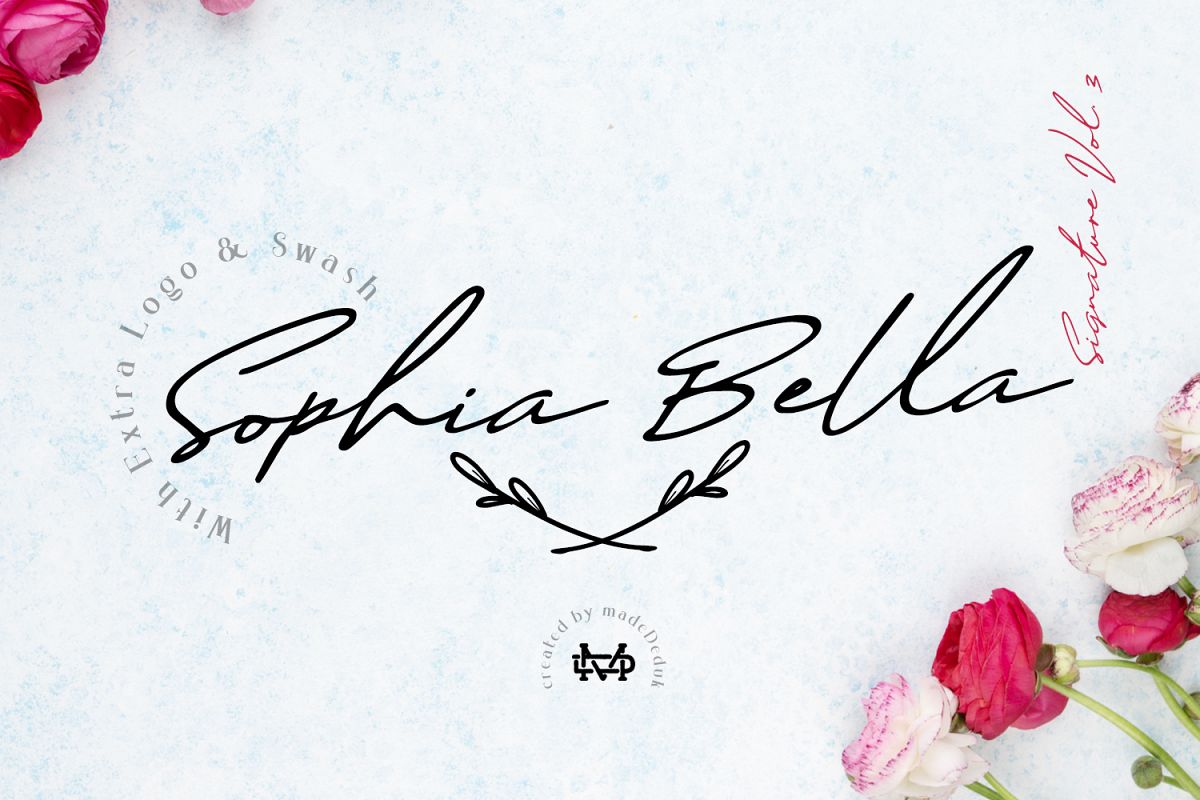
Sophia Bella Signature VOL.3
Introducing Sophia Bella is VOL.3 gorgeous handmade signature font. Sophia Bella signature includes more than 170 ligatures to make everything look natural handmade signature.This font perfect for poster design, book covers, merchandise, fashion campaigns, newsletters, branding, advertising, magazines, greeting cards, album covers, and quote designs and more.Whats Included?